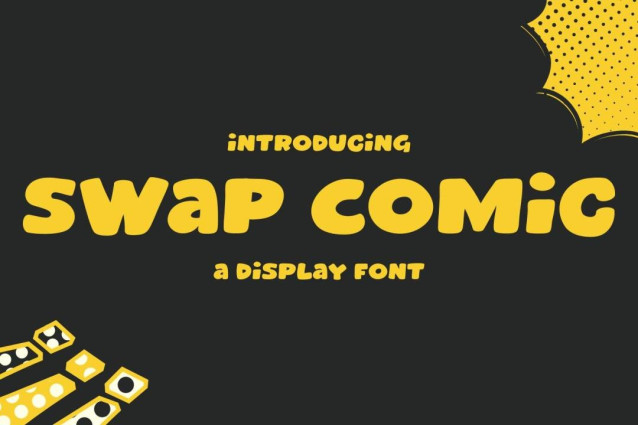
Swap Comic Font
Swap Comic Font is a simple and modern display font suitable for quotes, logos, headings, titles, and many more. Use it on any of your creative projects, and your designs will become outstanding!